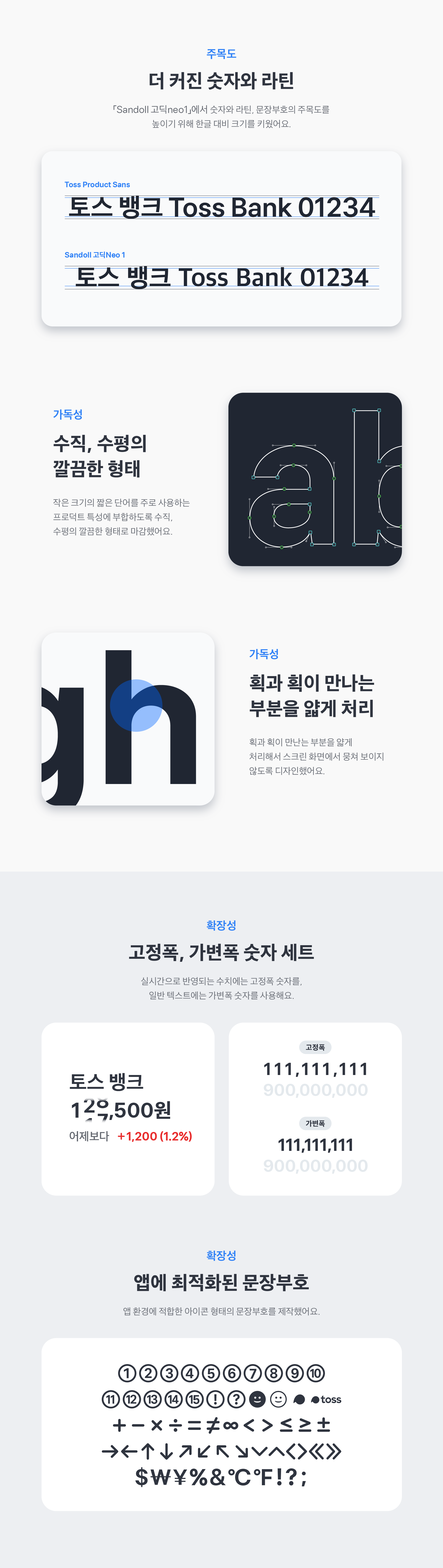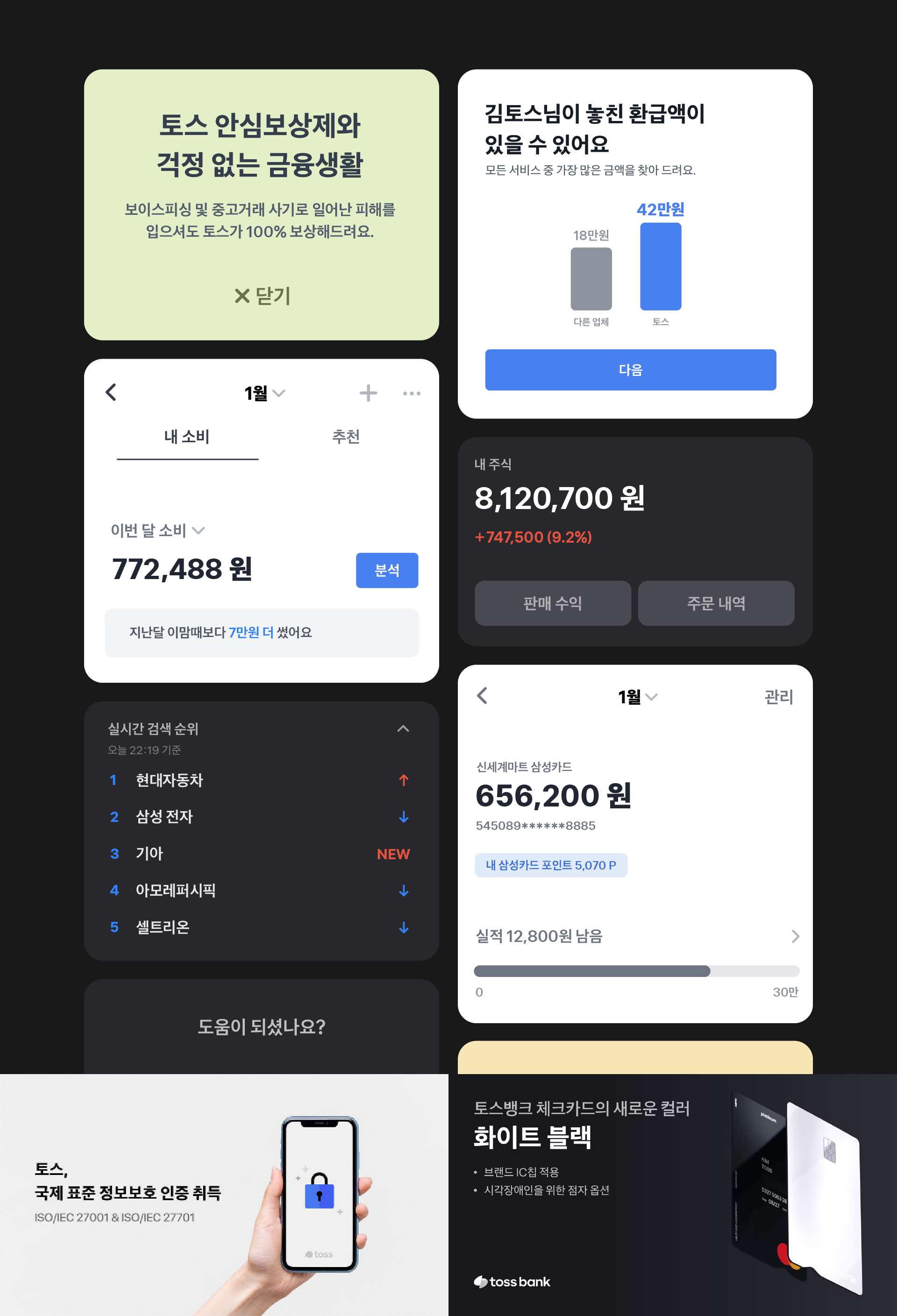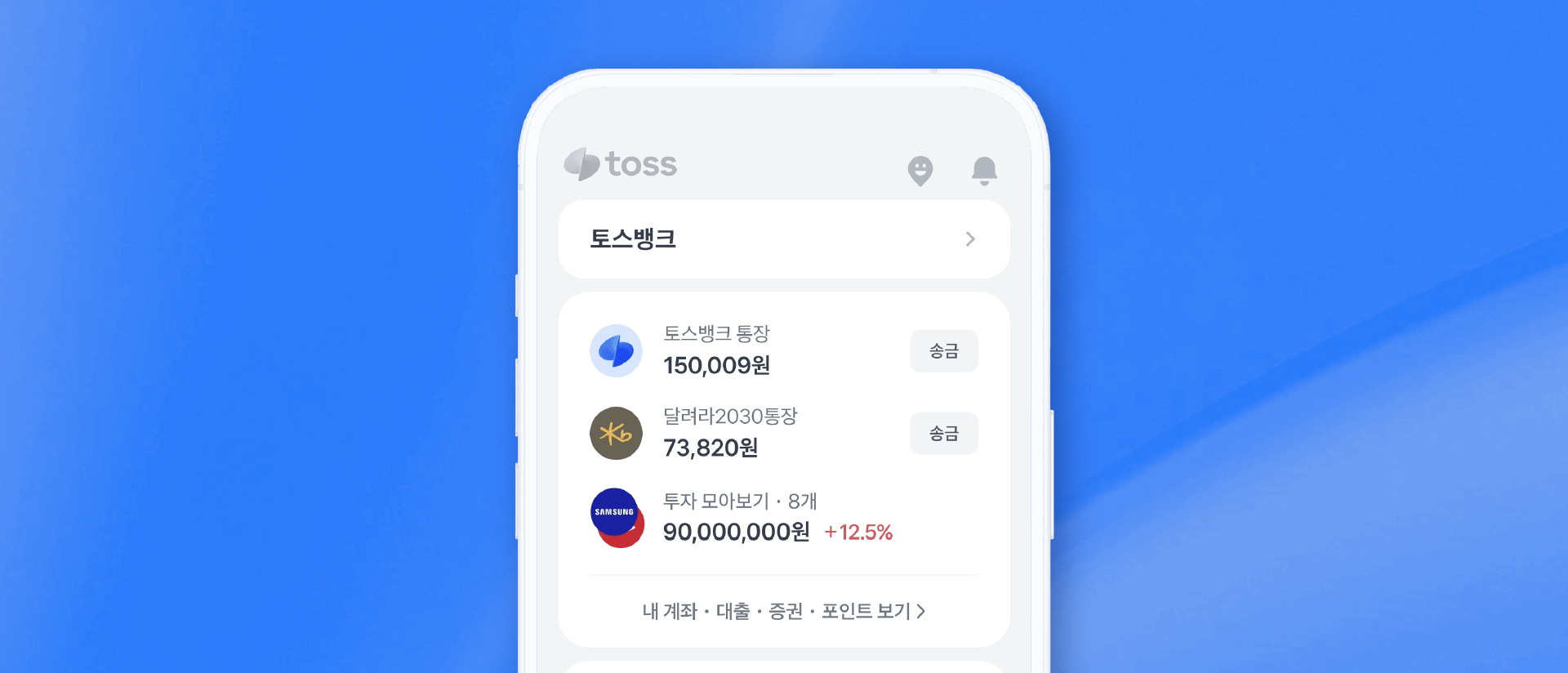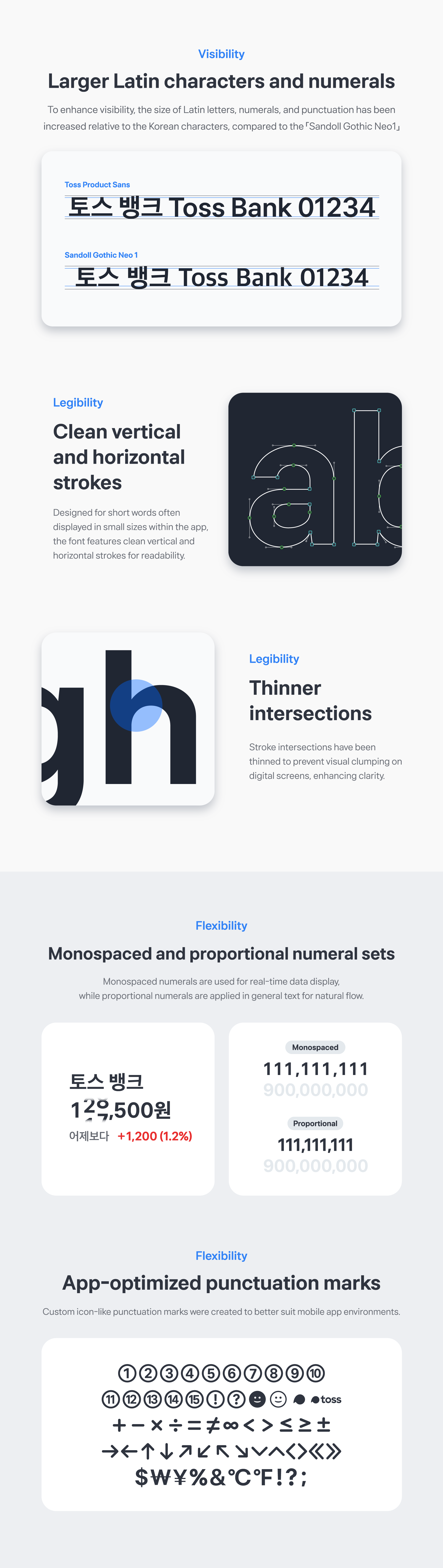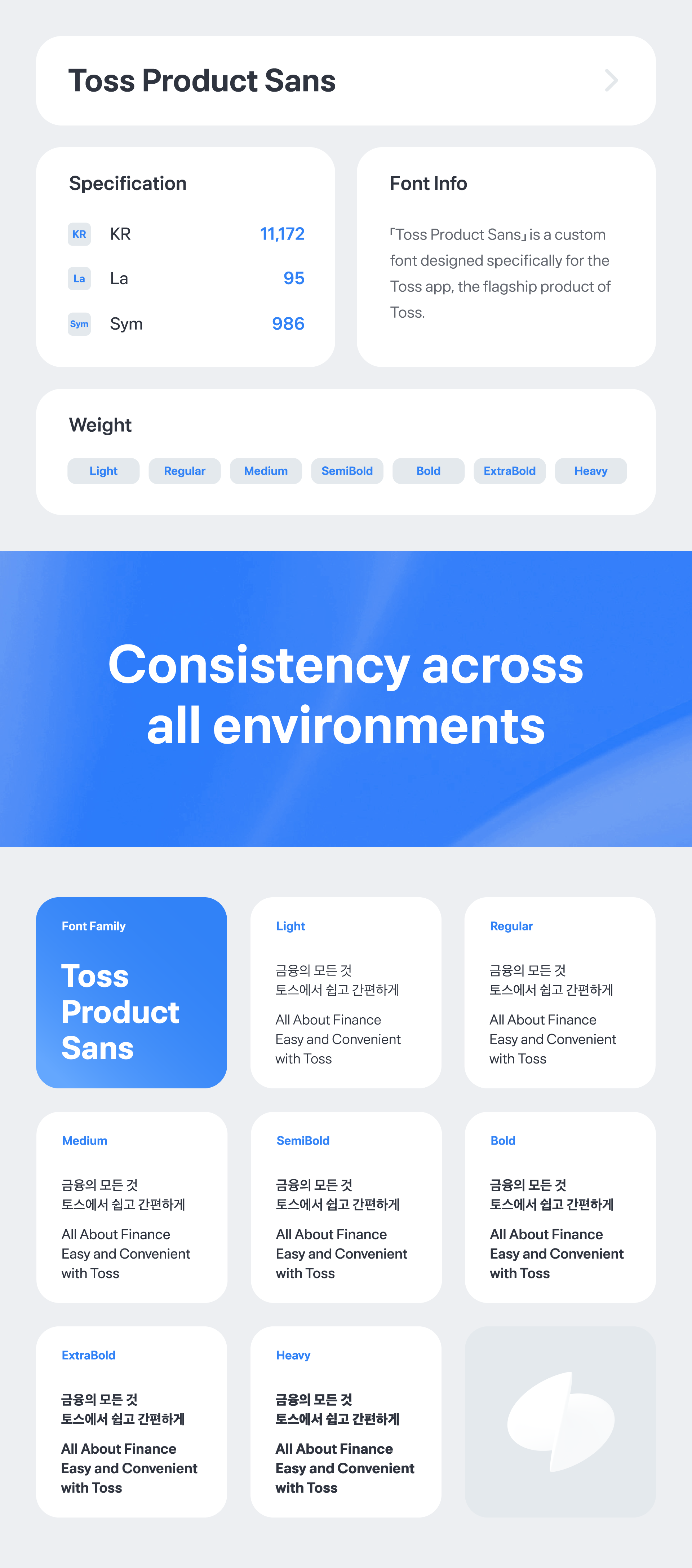
Toss Product Sans
「Toss Product Sans」 is a custom font designed specifically for the Toss app, the flagship product of Toss. Because financial services demand exceptional clarity in numerals and symbols, we retained the Korean glyphs of ‘Sandoll Gothic Neo1’, making only subtle refinements, and created an entirely new Latin, punctuation, and symbol set that blends seamlessly with the Korean forms.
To broaden usability, we released three tailored instances of the font: a standard version suitable for various environments, a version optimized for the Toss app with modified punctuation for better integration, and a lightweight version tailored for use on the Toss website.